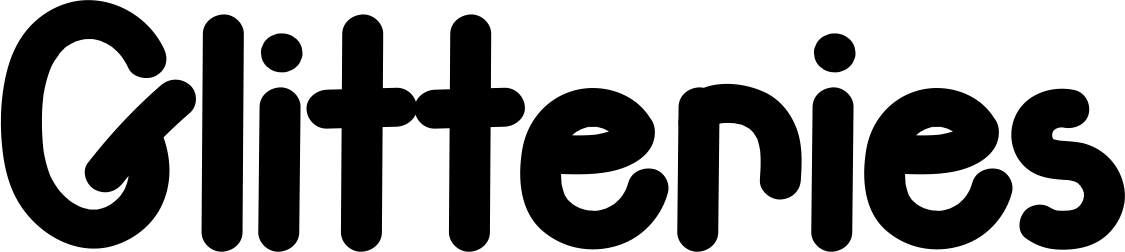
Glitteries Font
Like all the groovy fonts, Glitteries has happy characters, but it also has a playful look to it. Its letters are designed with big and marker-effect elements and it will give a cheerful makeover to your writing. You can use this font for funky and hippie texts, festival and party flyers, movie and cartoon titles, and informal headlines.